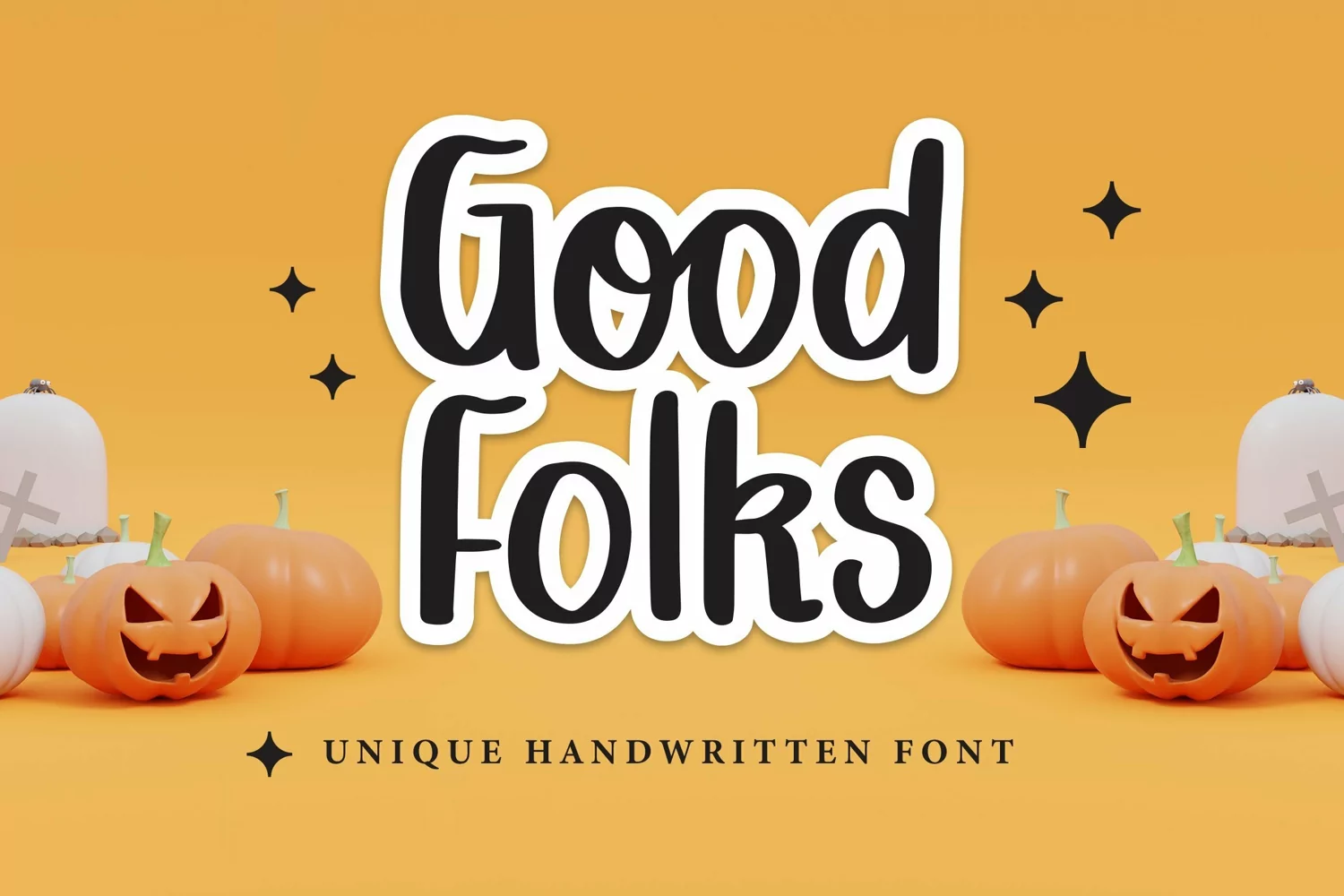
Web Font Good Folks - Unique Handwritten Font that contain lowercase, uppercase, symbol, and also support multi language. There’s a lot ligatures in this font. This Font also comes with ligatures, alternates and many more. this font suitable for fashion, branding, catalog and other design what you want.